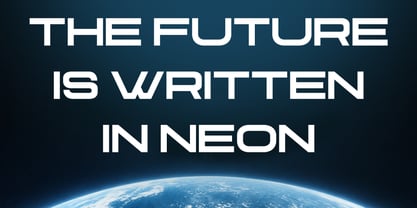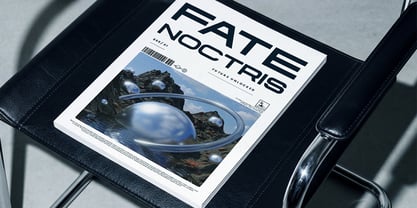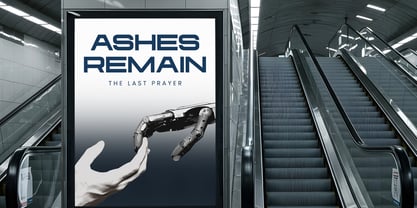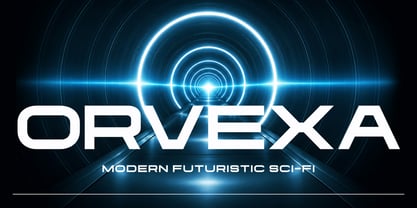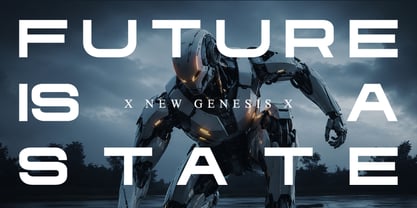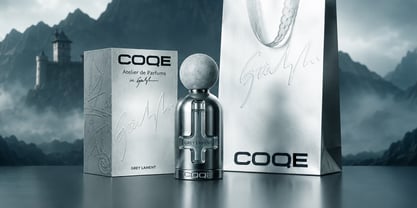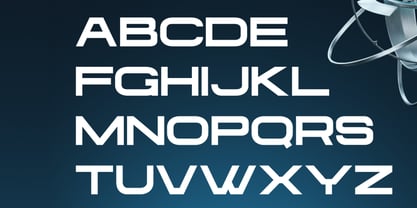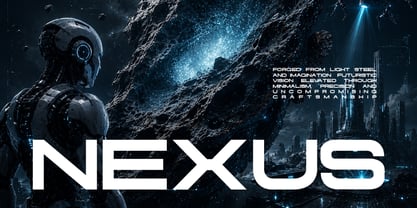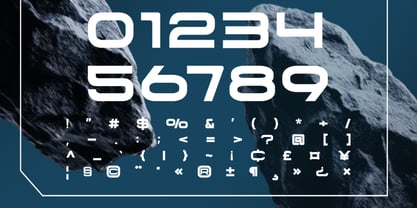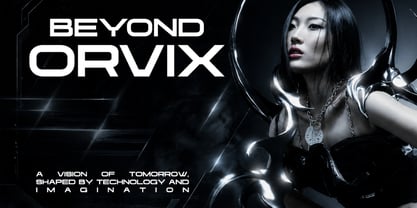
Orvexa
La familia tipográfica Orvexa fue diseñada por Fajar Indra y publicada por Rasio Studio. Orvexa contiene 1 estilos. Más información sobre esta familia
Orvexa is a bold geometric display typeface inspired by advanced technology, futuristic architecture, and science fiction interfaces. Built with sharp angular cuts, wide proportions, and precision-engineered letterforms, the typeface creates a powerful visual identity that feels innovative, high-tech, and unmistakably modern. Its distinctive construction combines clean horizontal terminals, squared curves, and balanced geometric shapes to produce a sleek industrial aesthetic while maintaining excellent readability in large-format typography.
Relevance and Use Case is perfect for projects that require a sleek technological aesthetic with a strong futuristic identity. Its bold geometric construction is ideal for technology startups, gaming brands, esports identities, software interfaces, artificial intelligence products, robotics companies, sci-fi entertainment, digital product launches, motion graphics, posters, product packaging, website headers, presentation templates, and branding systems where modern innovation and high-tech visual communication are the primary focus.